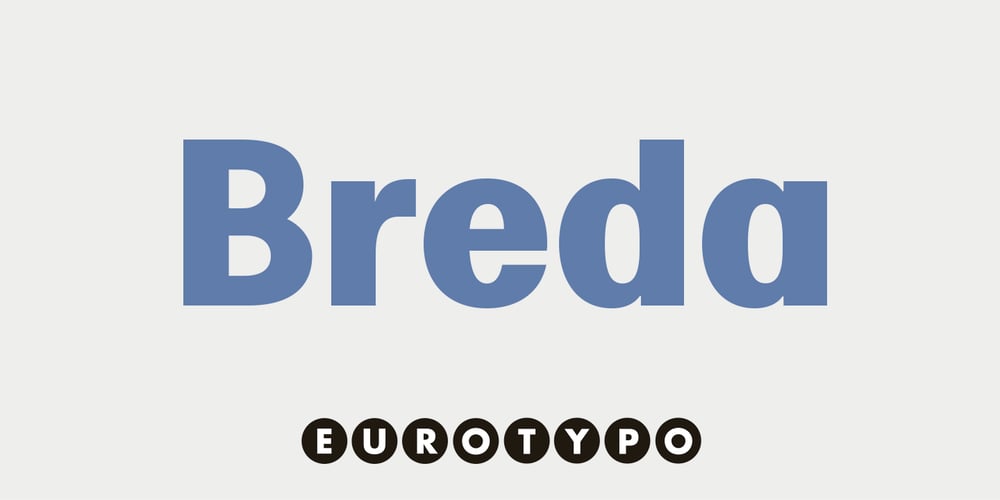
Breda Font Family was designed by Olcar Alcaide and published by Eurotypo. Breda contains 12 styles and family package options. Breda is a Geometric Sans-serif; it is constructed from simple geometric shapes such as the circle and rectangle. This family of fonts starts from a very thin single-line face to a strong heavyweight, called Black Face.The Breda font is austere style, functional and clear, emerged from straight lines, primary shapes, which is now jumping into the typographic and graphic design scene.They are presented in six wights with their corresponding italics.